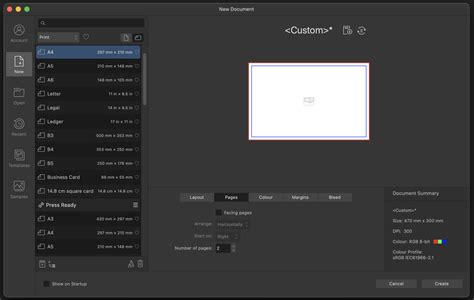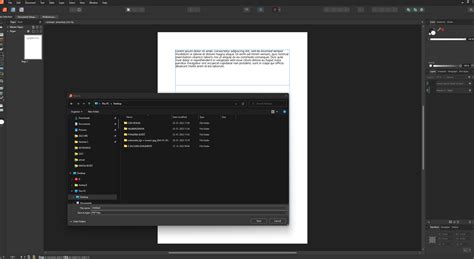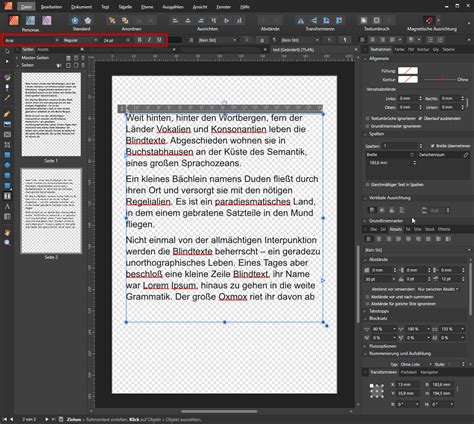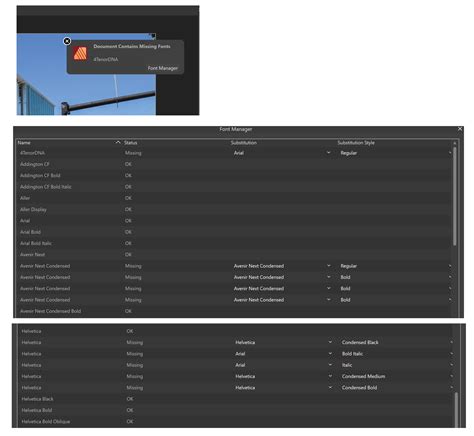
I've spent hours staring at a blank document, paralyzed by the sheer volume of typefaces available. When you're laying out a magazine or branding package, picking the right typography is exhausting. That's exactly why I compiled my own cheat sheet of the Top 20+ Affinity Publisher Fonts Afpub files handle flawlessly. Instead of second-guessing your choices, you need a curated list that actually performs well in production.
Curating the Top 20+ Affinity Publisher Fonts Afpub Users Rely On
Here's the thing about Serif's software: it handles OpenType features beautifully, but not every typeface plays nice. In my experience, heavy display fonts often cause rendering glitches or massive file bloat when you export. You want fonts with robust glyph sets, proper kerning pairs, and multiple weights. That said, you don't have to break the bank to get professional results.
When I tested various combinations, I focused on readability across different point sizes. A good text font needs to hold up at 9pt on a dense baseline grid, while your headline font needs character without sacrificing legibility. Let's look at how different categories stack up in a real workflow.
| Font Category | Best Use Case | Example Font |
|---|---|---|
| Geometric Sans | Modern headers | Montserrat |
| Humanist Serif | Body copy | Merriweather |
| Monospace | Tech captions | Fira Code |
Testing the Top 20+ Affinity Publisher Fonts Afpub Templates
Honestly, the best way to evaluate a typeface is to push it to its limits in an actual layout. I threw these 20+ fonts into complex master pages, tables of contents, and heavy text frames. The ones that survived the gauntlet share a few distinct traits:
- Extensive weight options: You need at least four weights to create proper visual hierarchy.
- Dynamic OpenType support: Ligatures and tabular figures are non-negotiable for editorial layouts.
⚠️ Note: If you don't properly embed or subset your fonts during PDF export in Affinity Publisher, commercial printers will substitute them automatically and ruin your kerning.
When building your .afpub files, remember that whitespace is just as important as the letterforms themselves. A beautifully crafted serif means nothing if your line height is too tight. I usually start with a leading value 1.5 times the font size, then adjust from there based on the x-height. Trust your eyes over the default software settings. Every project demands a slightly different approach, but having a reliable baseline of tested fonts saves you from starting at zero every time.